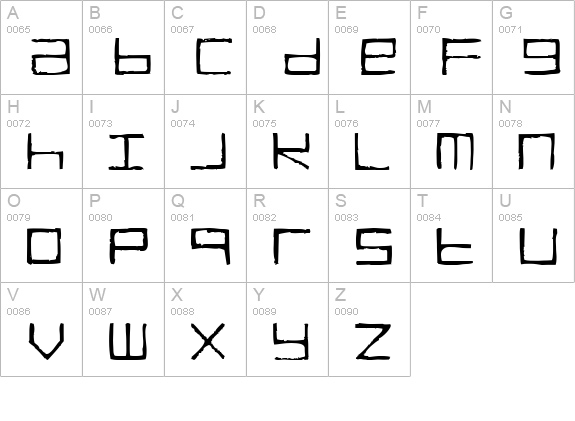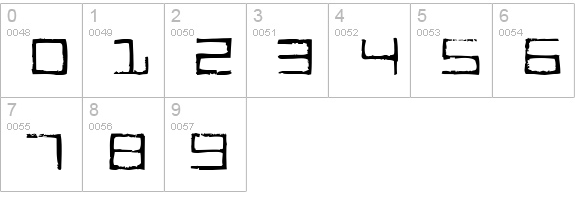
TRUCK Transmission Font Details
Introducing TRUCK Transmission, a bold and powerful font that encapsulates the essence of ruggedness and durability. This versatile typeface is designed with strong, angular letterforms, perfectly capturing the robustness and strength of a truck transmission. TRUCK Transmission exudes an unmistakable sense of power and reliability, making it an ideal choice for various design projects. Whether you're creating a logo for a construction company, designing a poster for a motor show, or crafting a bold headline for a magazine cover, this font will make a lasting impact. The characters in TRUCK Transmission are meticulously crafted to evoke a sense of mechanical precision, with sharp edges and strong lines that convey a sense of industrial strength. The letters seamlessly flow together, creating a cohesive and visually striking composition. One of the best features of TRUCK Transmission is that it is freely available to download at FontsMarket.com. This means that you can easily access and incorporate this unique font into your design projects without any hassle. Its availability at FontsMarket.com ensures that you can unleash the power of TRUCK Transmission in your work, whether for personal or commercial use, while saving both time and money. So, if you're in search of a font that embodies strength, reliability, and ruggedness, look no further than TRUCK Transmission. Download it today from FontsMarket.com and let your designs roar with power and confidence.